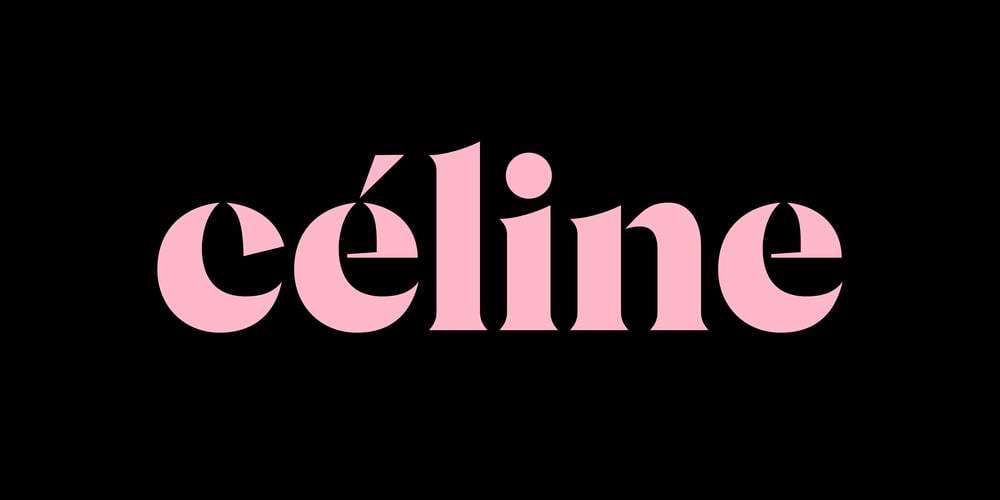
Céline
Céline font
Céline Font Family was designed by Wayne Fearnley and published by Wayne Fearnley. Céline contains 1 styles and family package options. Céline was inspired by a recent trip to a vineyard in the South of France. A vintage stencil numeral set was etched onto the wine fermentation tanks. Céline is a one weight stencil display typeface with plans to expand the family with multiple weights and non stencil versions. Céline includes some language support, standard and discretionary ligatures. I hope you enjoy it as much as I did making it.